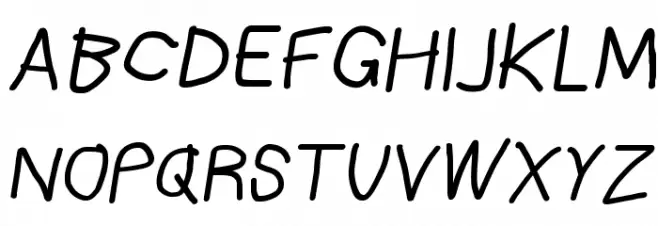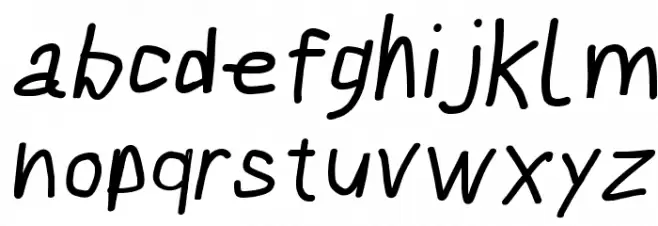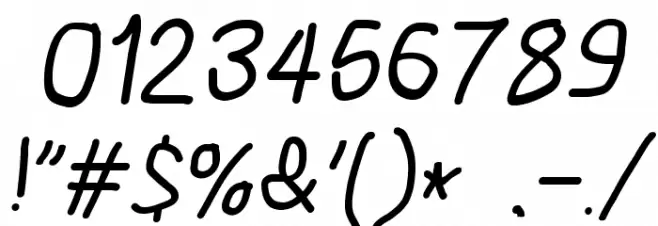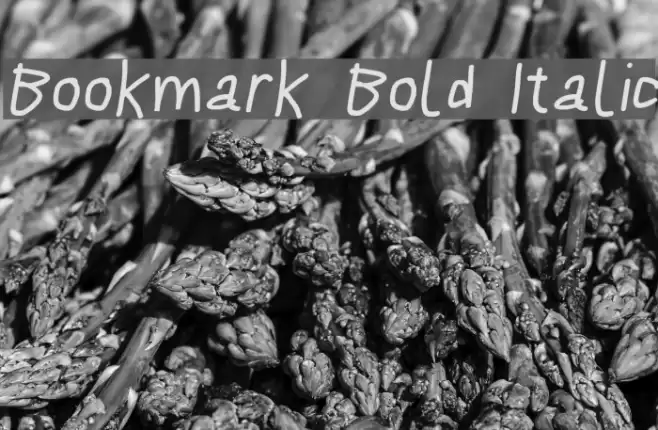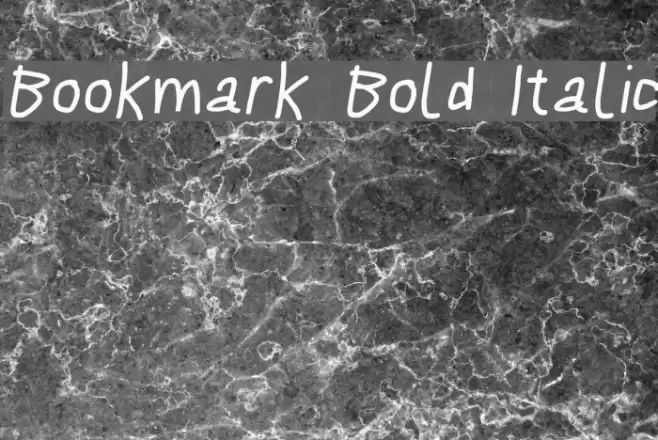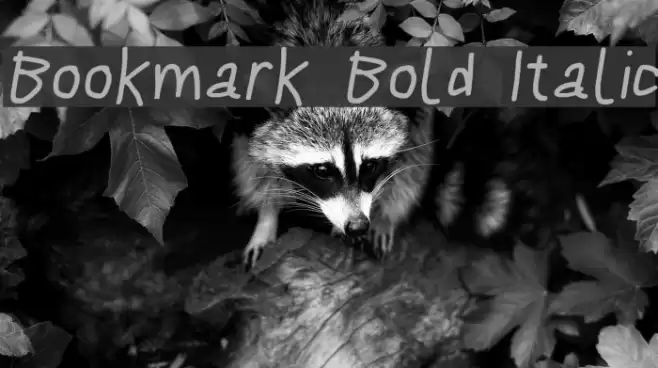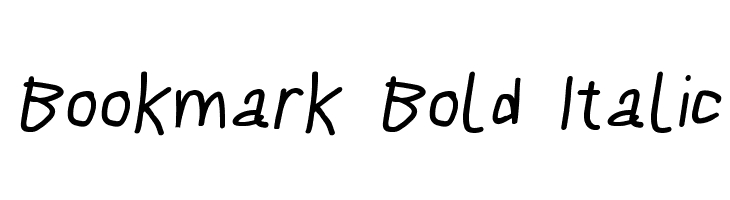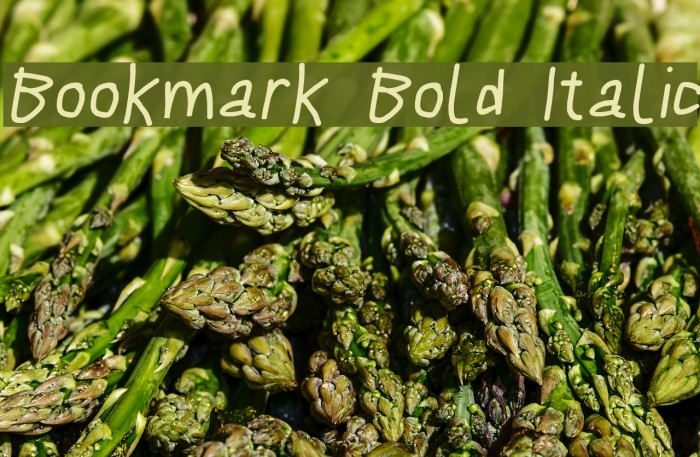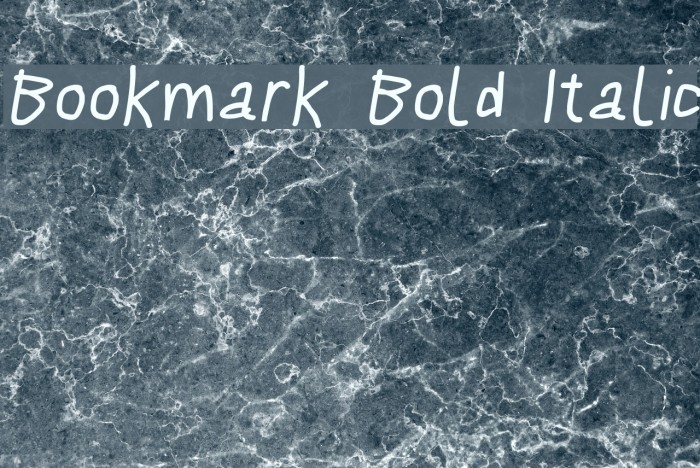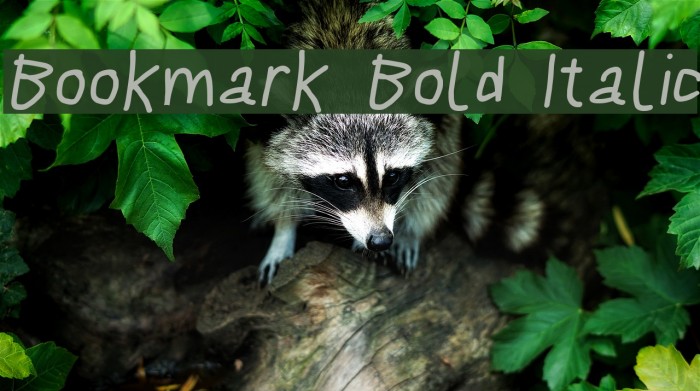
Bookmark Bold Italic
This font features a playful and casual handwritten style, characterized by its bold and italicized appearance. The letters have a smooth, flowing quality, with rounded edges and a slight slant, giving it an informal and friendly look. The uppercase and lowercase letters maintain a consistent style, with the lowercase letters slightly smaller and more compact. Numbers and special characters are designed to match the overall aesthetic, ensuring a cohesive appearance across all text. The font's boldness makes it stand out, while the italicization adds a dynamic and energetic feel.
A bold, italic, handwritten font with a playful and casual style.
- Proposed Projects: Ideal for greeting cards, invitations, casual branding, and social media graphics.
- Overall Style: Casual
- Use Case: Logos, Headlines, Invitations